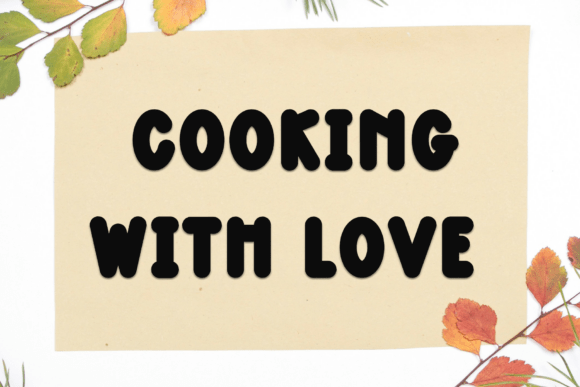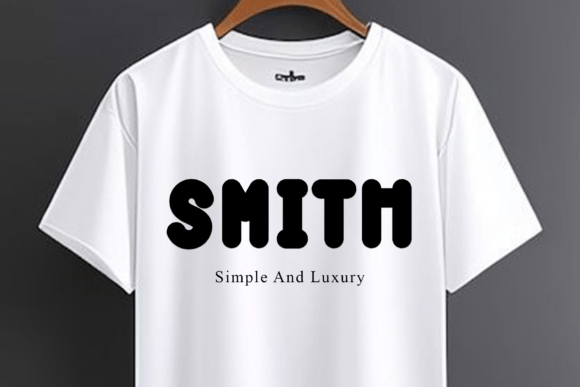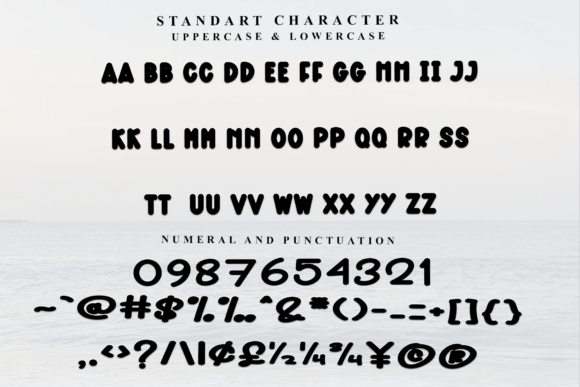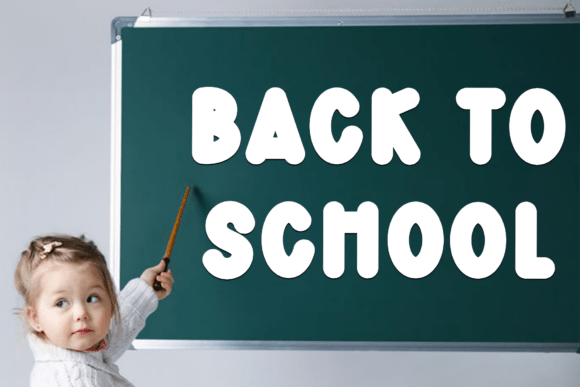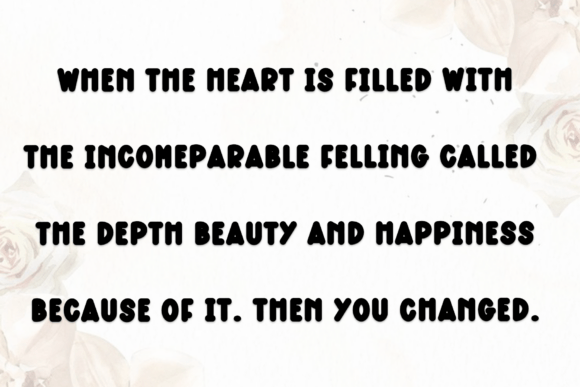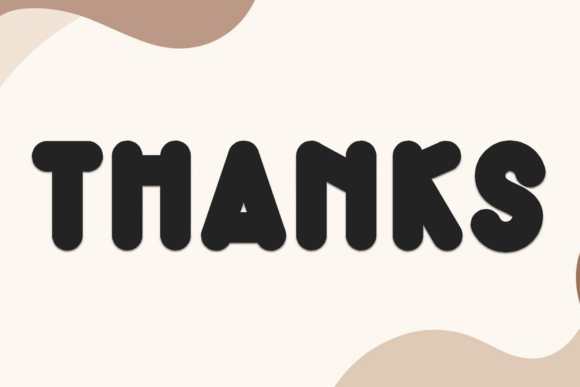
The Magic of Donut Font: A Festive Typeface for Your Holiday Designs
I still remember the holiday season a few years ago when I was working on a project to create a festive greeting card for a client. I had all the design elements ready – the colors, the graphics, the layout – but I was stuck on finding the perfect font. I wanted something that would capture the cheerful and nostalgic ambiance of the holidays, but everything I found seemed either too boring or too over-the-top. That’s when I stumbled upon the Donut Font, and it instantly brought magic to my design.
An Honest Review of Donut Font
Donut Font is a decorative typeface that embodies the spirit of the holiday season. With its whimsical flair and enchanting elements, it’s perfect for adding a touch of festivity to your designs.
What I Love About Donut Font ✨
- ✅ Festive and merry vibe that’s perfect for holiday-themed projects
- ✅ Decorative elements and whimsical flair that add a touch of enchantment to your designs
- ✅ Great for creating greeting cards, gift tags, and other holiday-themed projects
- ⚠️ May not be suitable for formal or professional designs, as it’s quite decorative
- ⚠️ Some users may find the font a bit too playful or childish for their taste
The Story Behind Donut Font
Donut Font was designed by a team of creative typographers who wanted to capture the magic of the holiday season in a font. Inspired by the whimsical and festive atmosphere of holiday markets and snow-covered streets, they crafted a font that’s both playful and enchanting. The result is a typeface that’s perfect for adding a touch of holiday cheer to your designs.